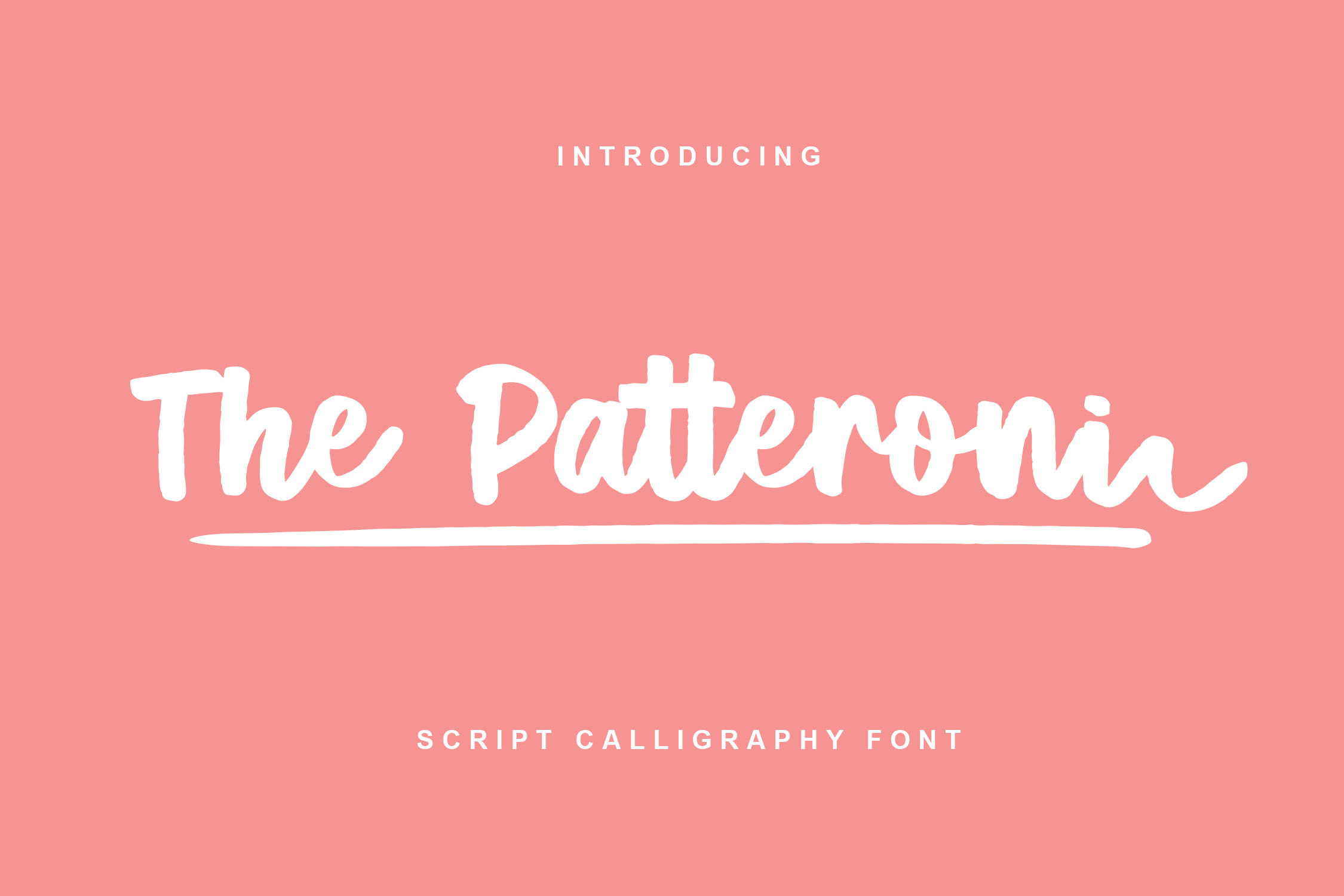
The Patteroni - Script Font
The Patteroni is a beautiful script font with a calligraphy style. It i-s a font style that is made with scratches and curvature shapes font characters are very beautiful. Can be applied to support the graphic appearance of the product to be more attractive and unique. This font is suitable for making previews and covers, logo designs, shirt designs, and other graphic needs.